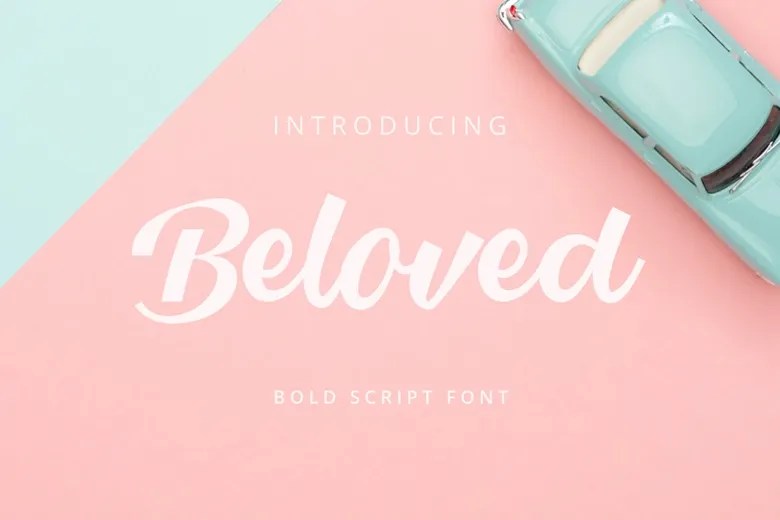
Beloved Script Font
Introducing Beloved, a font that embodies powerful and bold typography reminiscent of sports jerseys and college logos. With its strong presence, this typeface is perfectly suited for a variety of applications, including sports logos, vintage clothing designs, and varsity aesthetics. Its robust design is both simple and uncluttered, ensuring readability while exuding a classic charm that stands the test of time.
The distinct character of Beloved makes it an excellent choice for any project that seeks to capture the spirit of nostalgia and youthful energy. Whether you’re designing promotional materials for a sports team, crafting stylish apparel, or creating eye-catching branding, this font delivers a striking visual impact that draws attention and leaves a lasting impression.
In addition to its aesthetic appeal, Beloved offers versatility across various design mediums. Its timeless style seamlessly integrates into both modern and retro themes, making it an indispensable tool for designers aiming to evoke a sense of community and team spirit. With each letter, the font communicates a message of strength and unity, ideal for projects that celebrate athleticism and camaraderie.